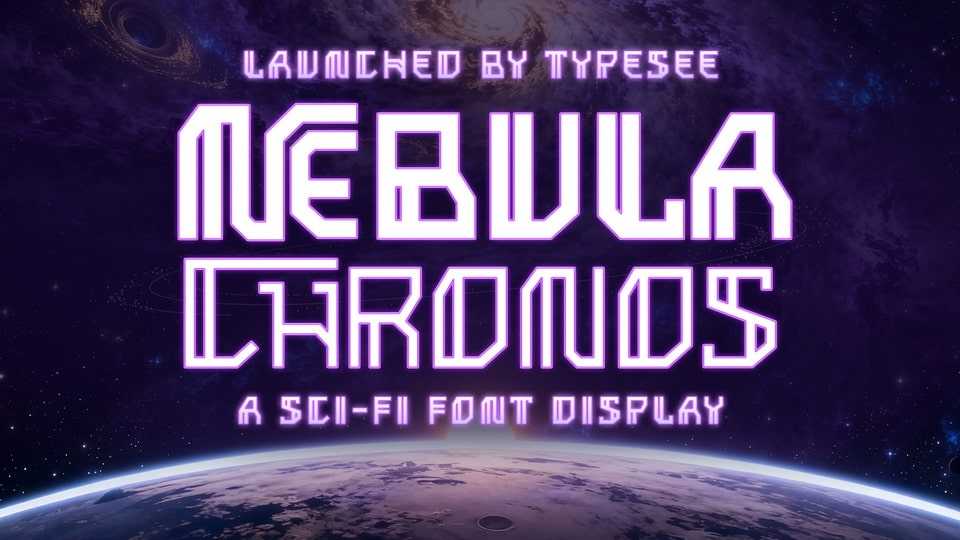
Download Nebula Chronos font, a cutting edge sci-fi display typeface designed to bring the aesthetics of deep-space exploration and advanced technology straight into your creative projects.
Designer: Typesee Typefoundry